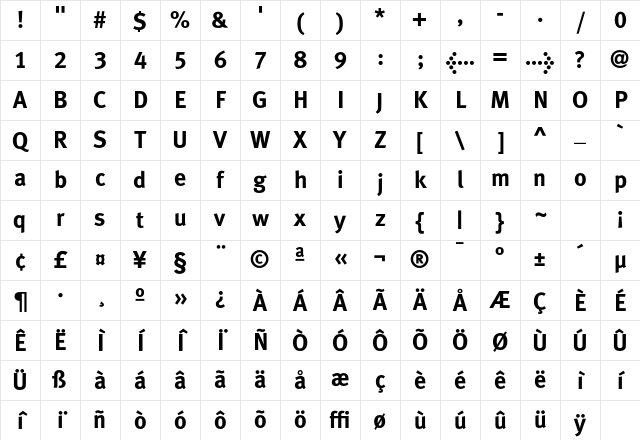
Complete MetaPlusLining Bold glyph index. Displaying only characters natively supported by MetaPlusLining Bold font.
MetaPlusLining is a composed and adaptable typeface that performs quietly and consistently across a wide range of design contexts. Its bold stroke weight gives it real presence on the page.